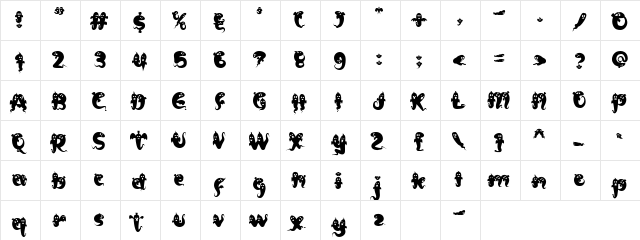
Funboo Regular
| Designer | ZetDesign (Ahmad Zulfikar Ali) |
Design Context for Funboo Typeface
Funboo has an approachable, lighthearted character — its loose, expressive forms are well-suited to children's content, casual branding, and fun-first design.
Font Pairing: Pairs well with a rounded or humanist sans for body copy, maintaining the friendly tone without relying on Funboo to carry extended reading.
Pro Tip: Avoid using Funboo for long passages of text — it works best for headlines, labels, and short calls to action.